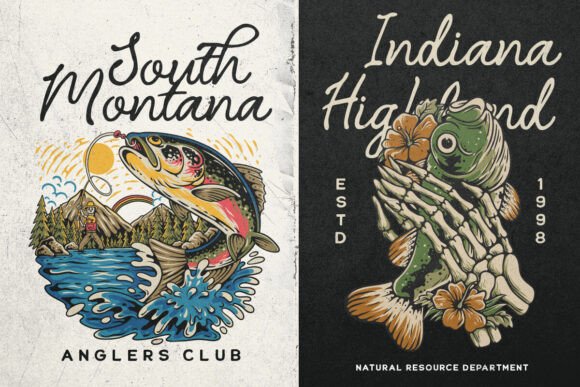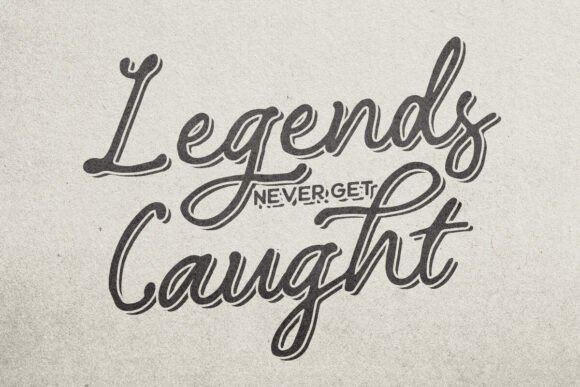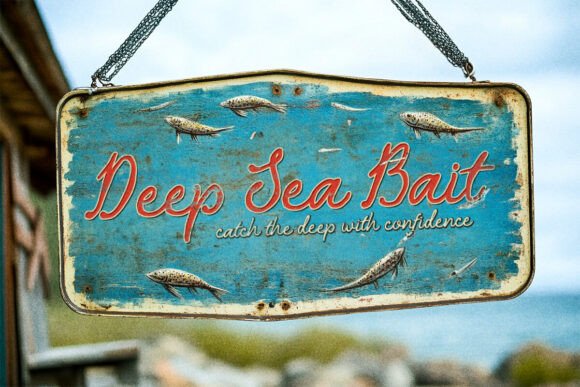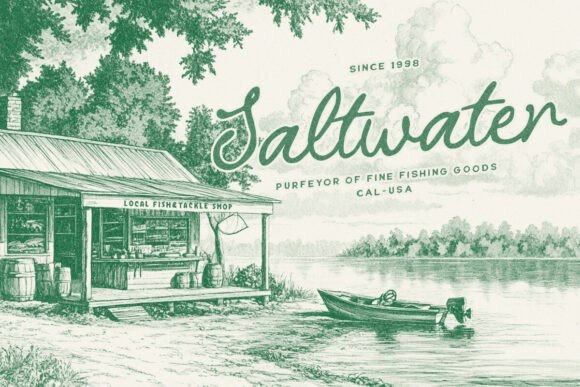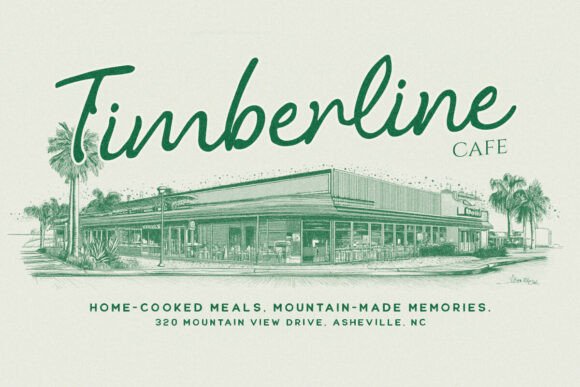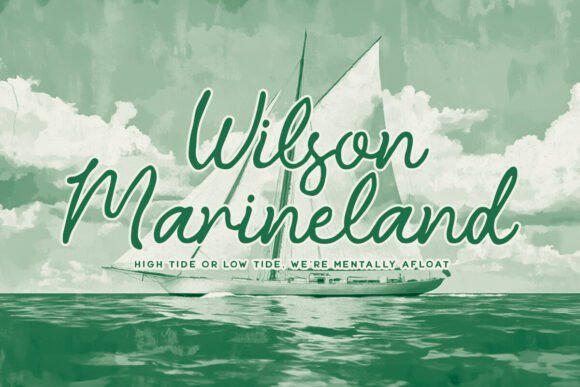
Introduction to Rodlock Font
Have you ever stumbled upon an old, worn-out sign in a quaint little shop, and instantly felt a sense of nostalgia wash over you? For designers, that moment is a treasure trove of inspiration, and the perfect opportunity to dig up a vintage font that captures the essence of that bygone era. Enter Rodlock Font, a free download that’s sure to transport your creative project to a world of retro charm and organic elegance.
With its flowing script lines and natural, hand-drawn feel, Rodlock Font is the perfect design resource for anyone looking to add a touch of authenticity to their branding, logos, or packaging. Whether you’re working on a high-quality project or just a fun little side hustle, this versatile font is sure to bring a distinctive, handcrafted look that stands out from the crowd.
Key Features of Rodlock Font
- Unique and Creative Design: Rodlock Font is a high-quality design resource perfect for creative projects, offering a unique and modern aesthetic.
Honest Review: Rodlock Font
I recently had the chance to experiment with the Rodlock Font, and I must say, it’s a great addition to any design resource library. This free download has been a game-changer for my creative projects, offering a unique and stylish aesthetic that’s sure to elevate any design.
- ✨ High-quality design: The Rodlock Font is incredibly detailed and well-crafted, making it perfect for professional projects.
- ✨ Versatile: This font can be used for a variety of creative projects, from business cards to magazine layouts.
- ✨ Transparent background: The transparent background feature makes it easy to layer and combine with other design elements.
- ⚠️ Limited character set: The Rodlock Font only includes a limited character set, which may not be suitable for projects requiring extensive text.
- ⚠️ Not suitable for small text: The font’s unique style may not be ideal for small text, as it can become difficult to read.
Overall, I’m impressed with the Rodlock Font’s high quality and versatility. While it may have some limitations, it’s a valuable addition to any design resource library, especially for those looking for a unique and stylish font for their creative projects.
Getting the Most Out of Rodlock Font
To get the most out of Rodlock Font, use it in combination with other design resources, such as graphics and textures. Experiment with different font sizes, colors, and arrangements to achieve a unique look.
Rodlock Font is ideal for creative projects that require a high-quality, transparent font. Common use cases include logos, branding, and marketing materials.
Q: Is the Rodlock Font suitable for high-quality design projects?
Yes, the Rodlock Font is designed to be a high-quality design resource. With its clean and modern design, it’s perfect for use in creative projects that require a professional and sophisticated look. The font’s high level of detail and precision make it ideal for use in brochures, magazines, and other print materials.